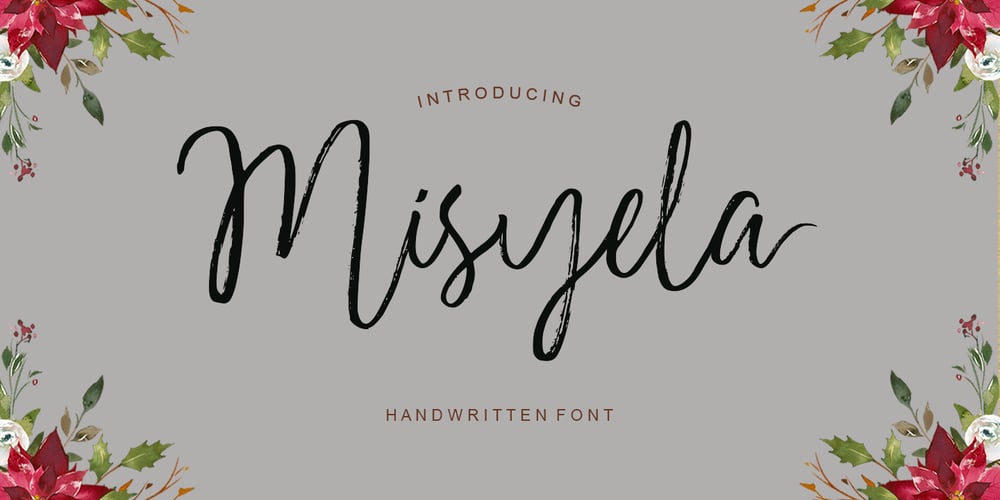
Misyela Font Family was designed by Yur Lis and published by Stripes Studio. Misyela contains 1 styles and family package options. Introducing Misyela, made with modern handwriting! You can use it for your work because there are a lot of features in it to contain a complete set of letters lower and uppercase letters, assorted punctuation, numbers, and multilingual support. This font also contains several ligatures and alternate characters.